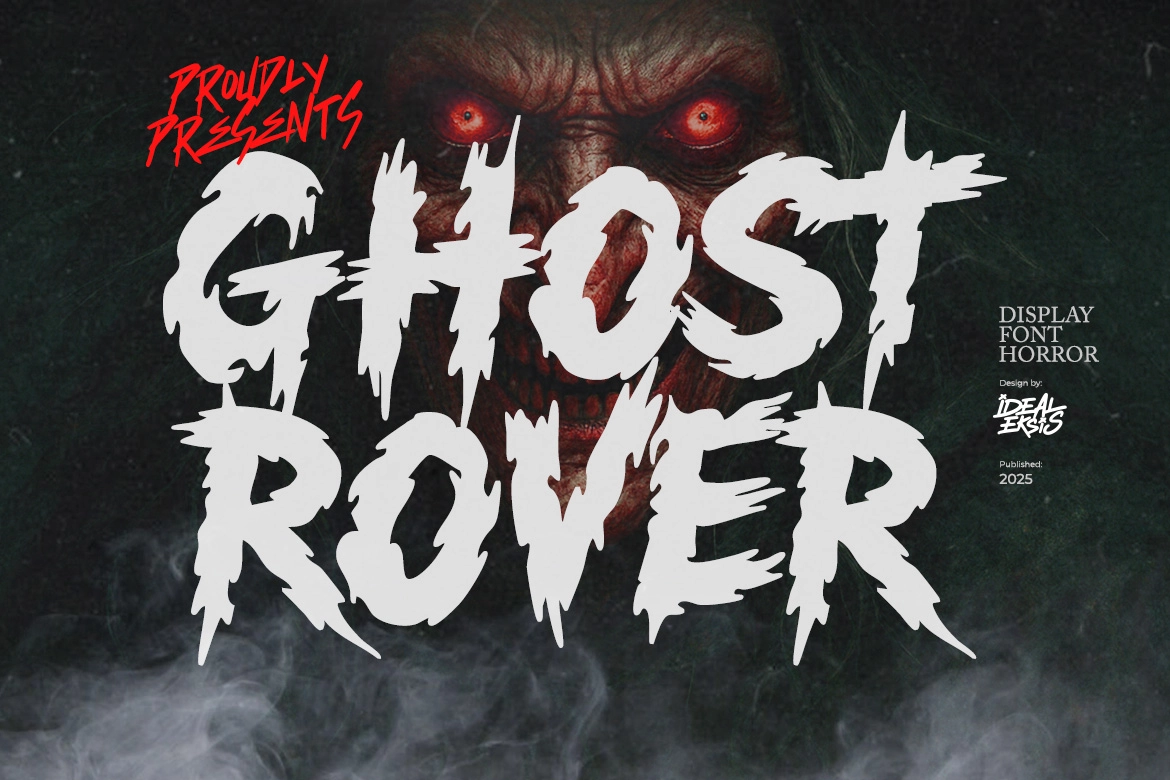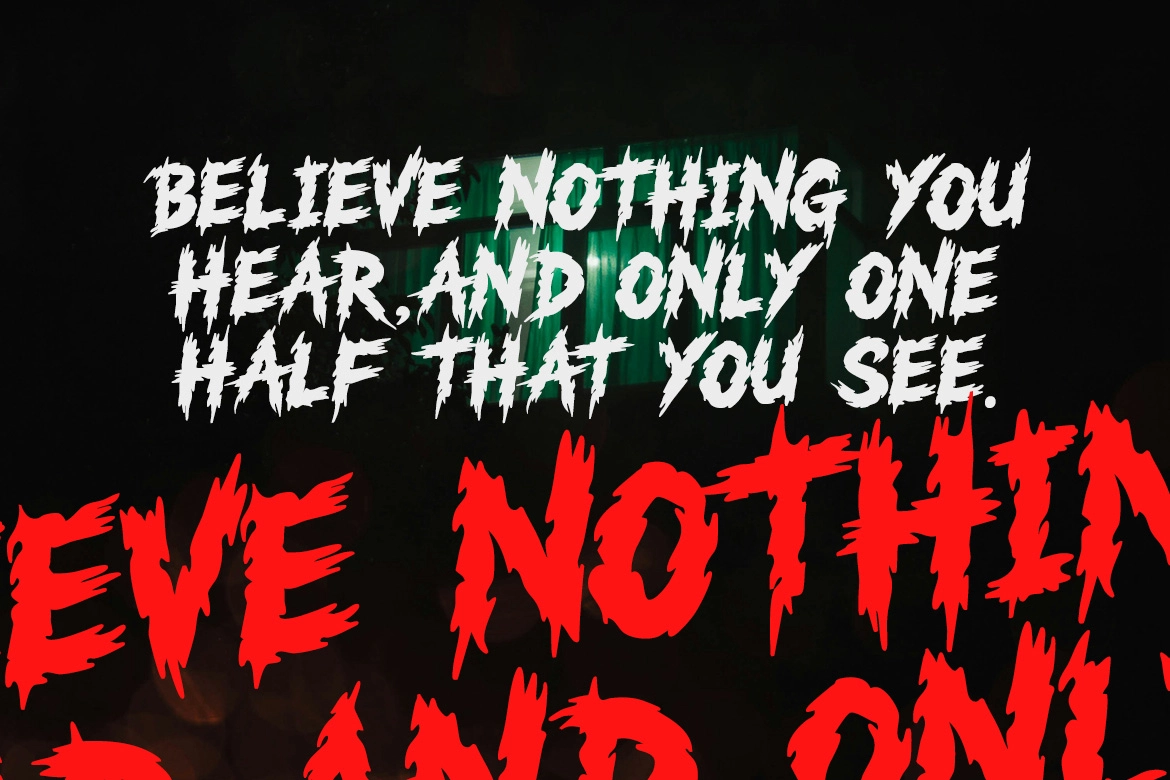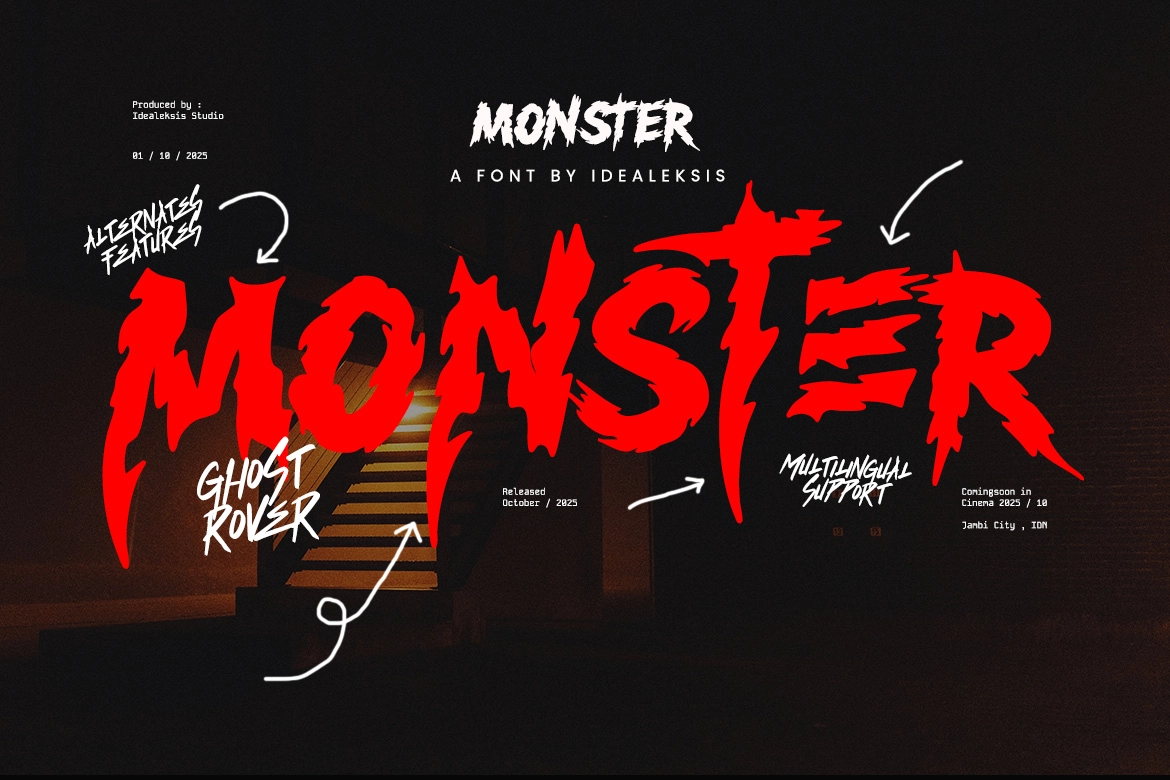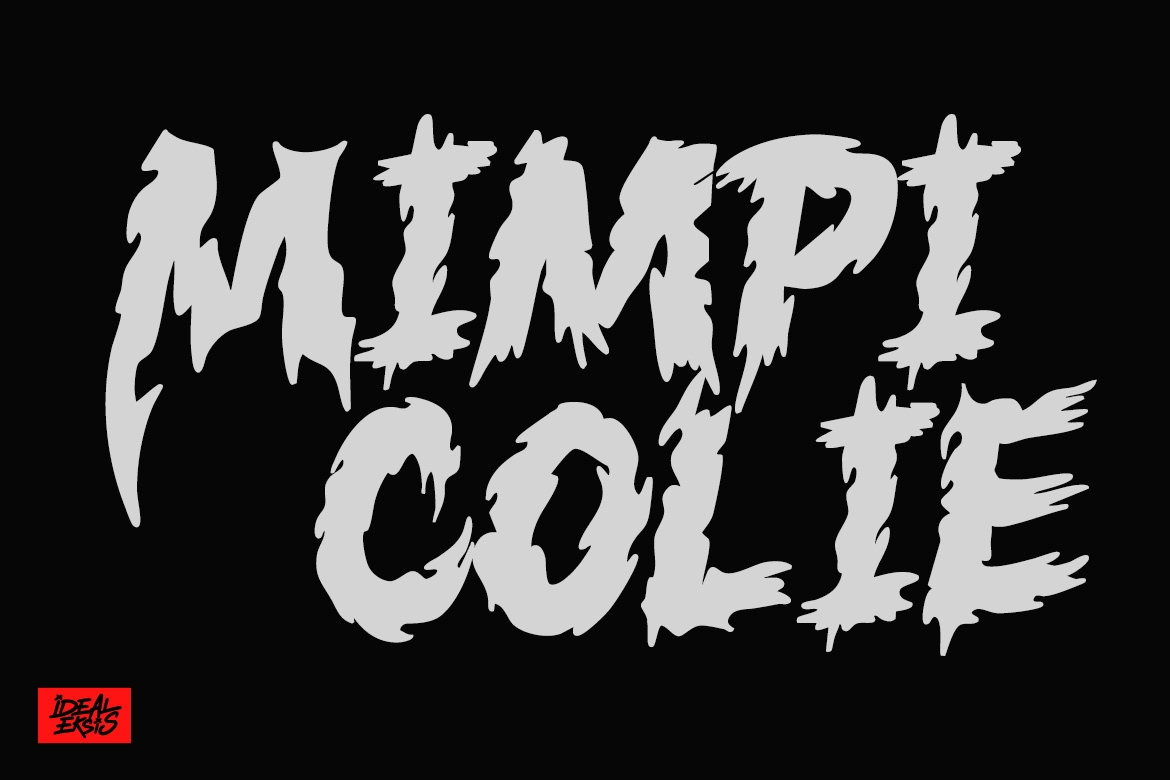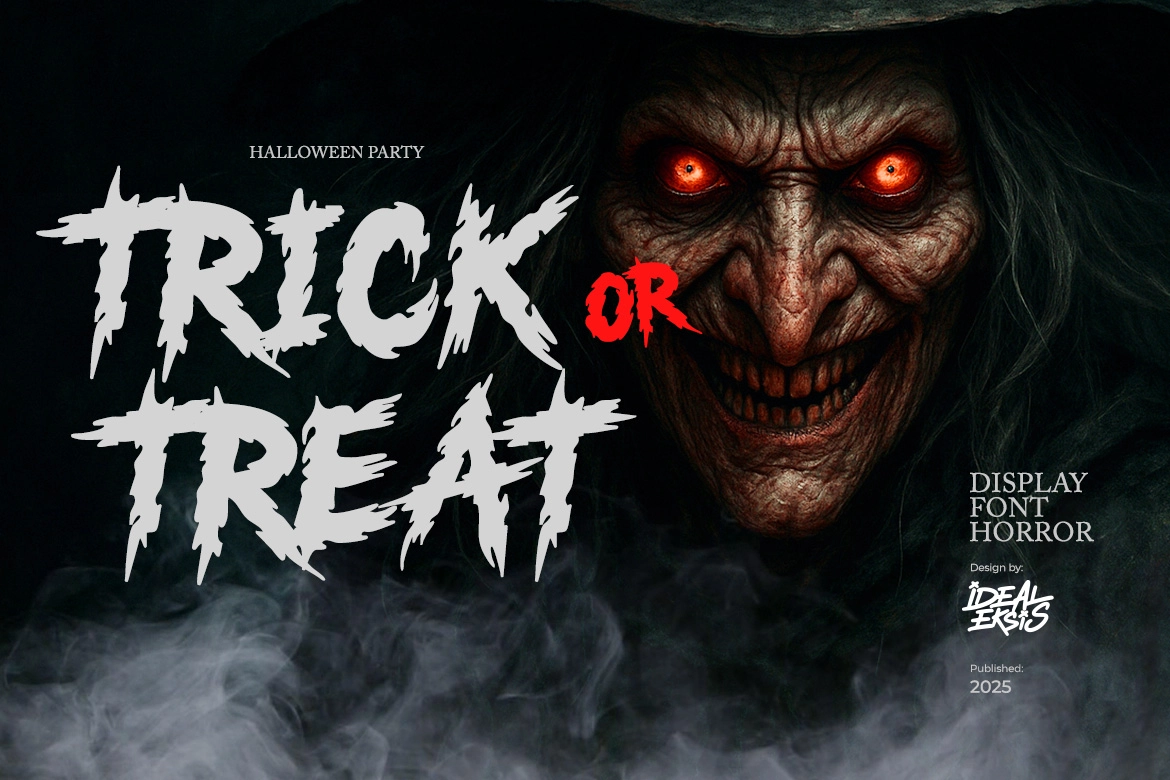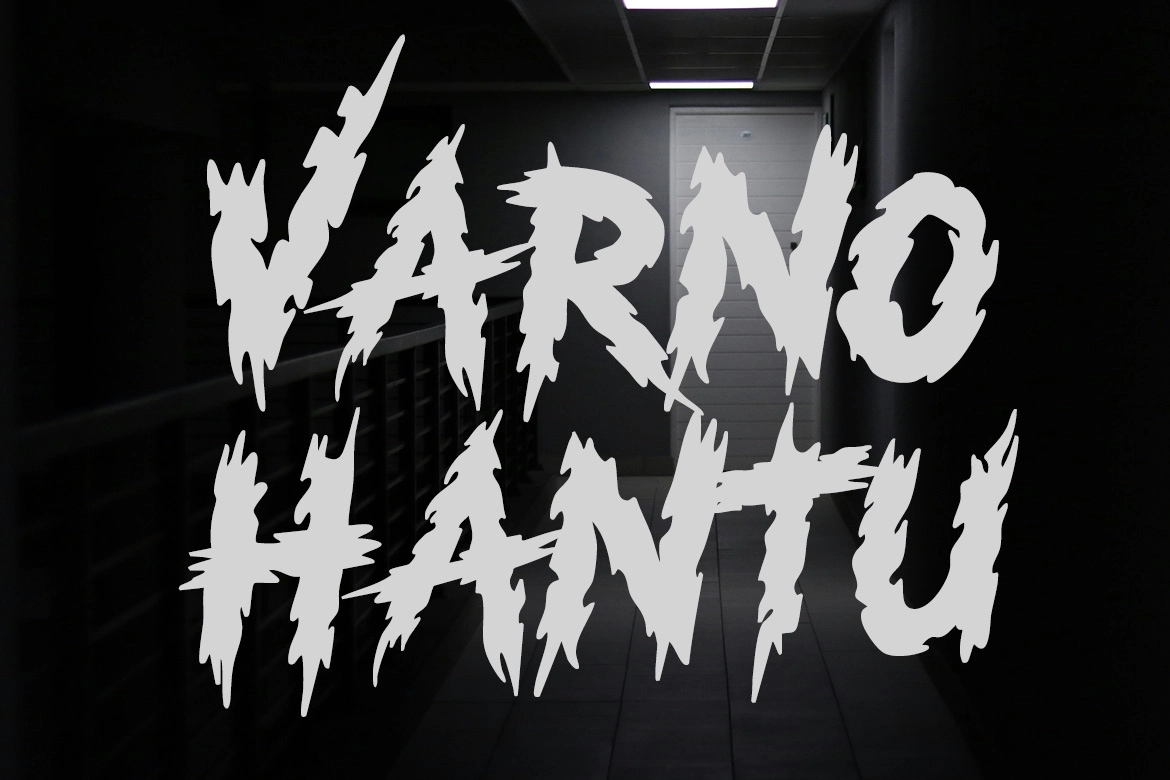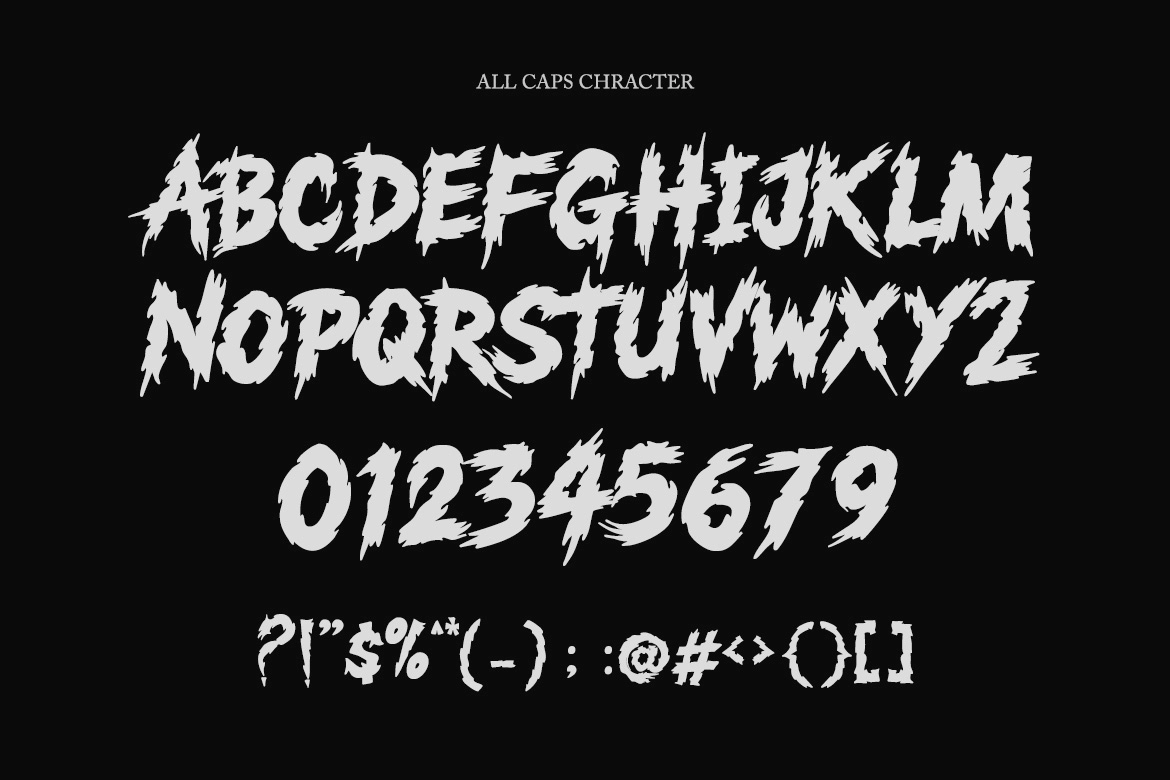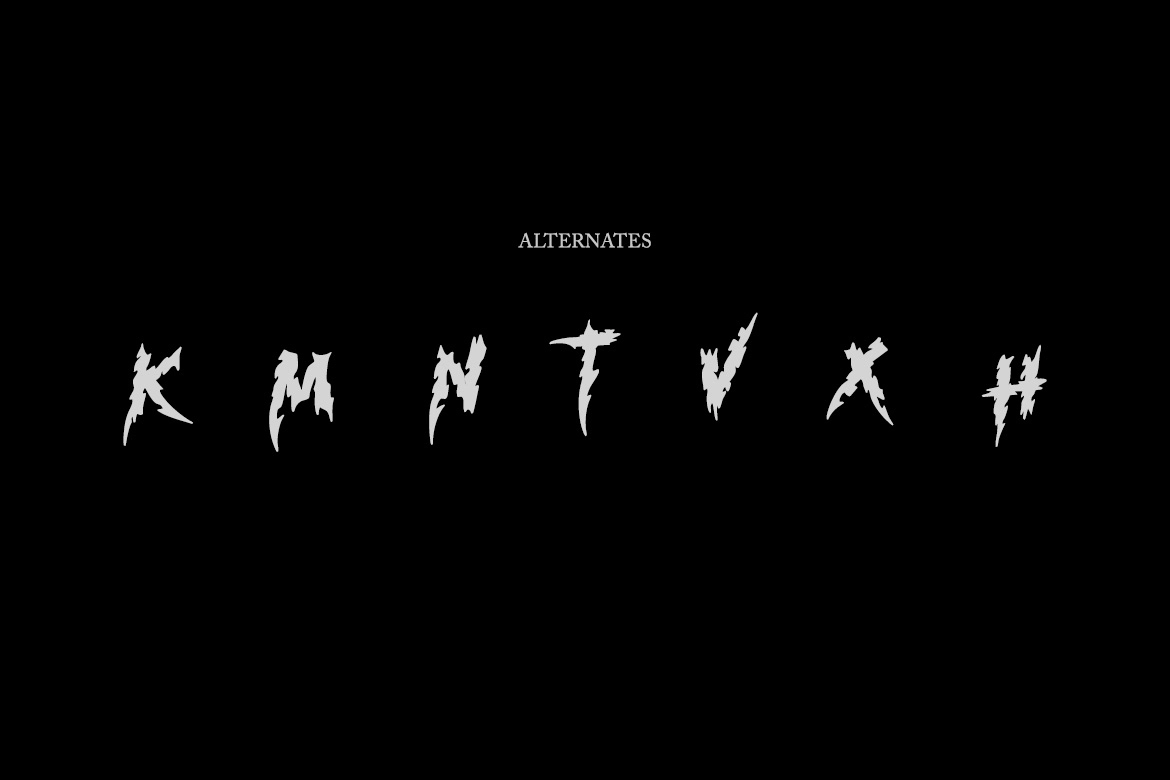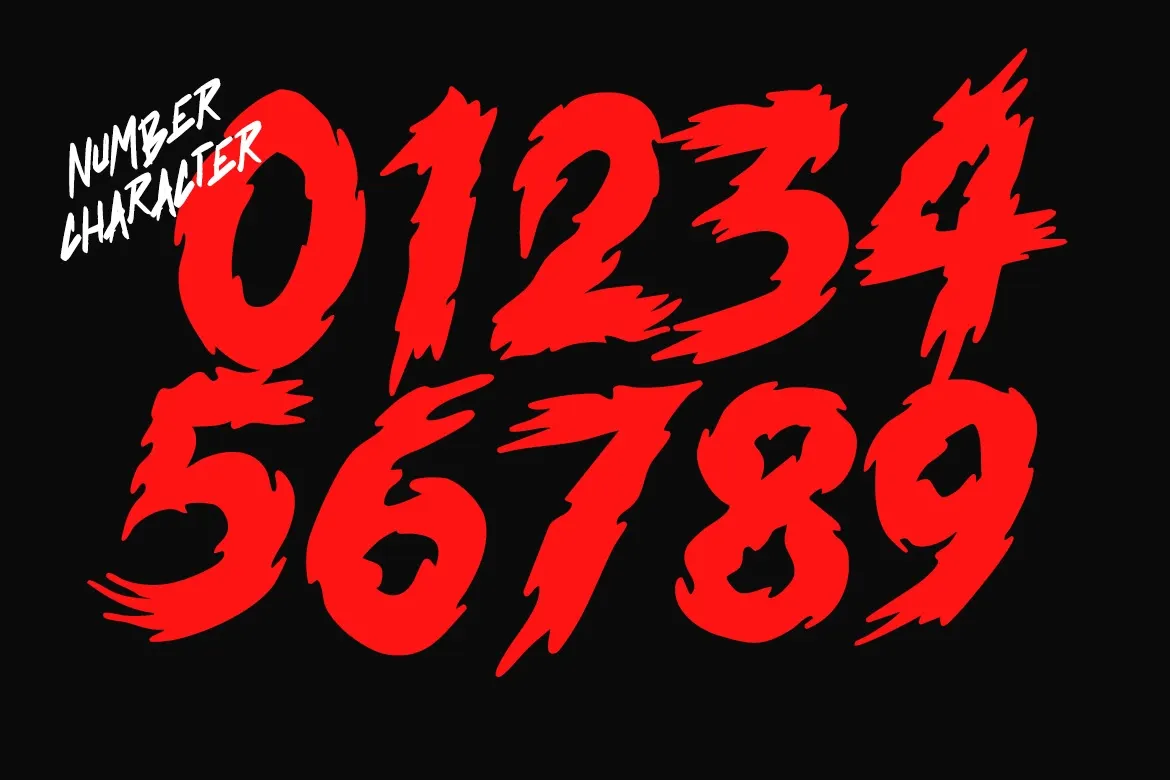
Ghost Rover - Horror Scratch Font
Ghost Rover – Horror Scratch Font is a terrifying display typeface inspired by classic horror movie titles and dark cinematic visuals. Its rough brush strokes, jagged edges, and scratched details create a sinister atmosphere that instantly brings tension and fear to your designs.
The aggressive letterforms and dripping horror style make Ghost Rover perfect for projects that need a chilling and dramatic impact. Whether used for bold headlines or spooky branding, this font delivers a haunting visual presence that captures the essence of horror and suspense.
Ideal for Halloween posters, horror movie titles, thriller book covers, dark branding, and spooky event graphics, Ghost Rover adds an intense and frightening character to any design.
Feature:
• Uppercase characters (All Caps)
• Numbers & punctuation
• Alternate characters